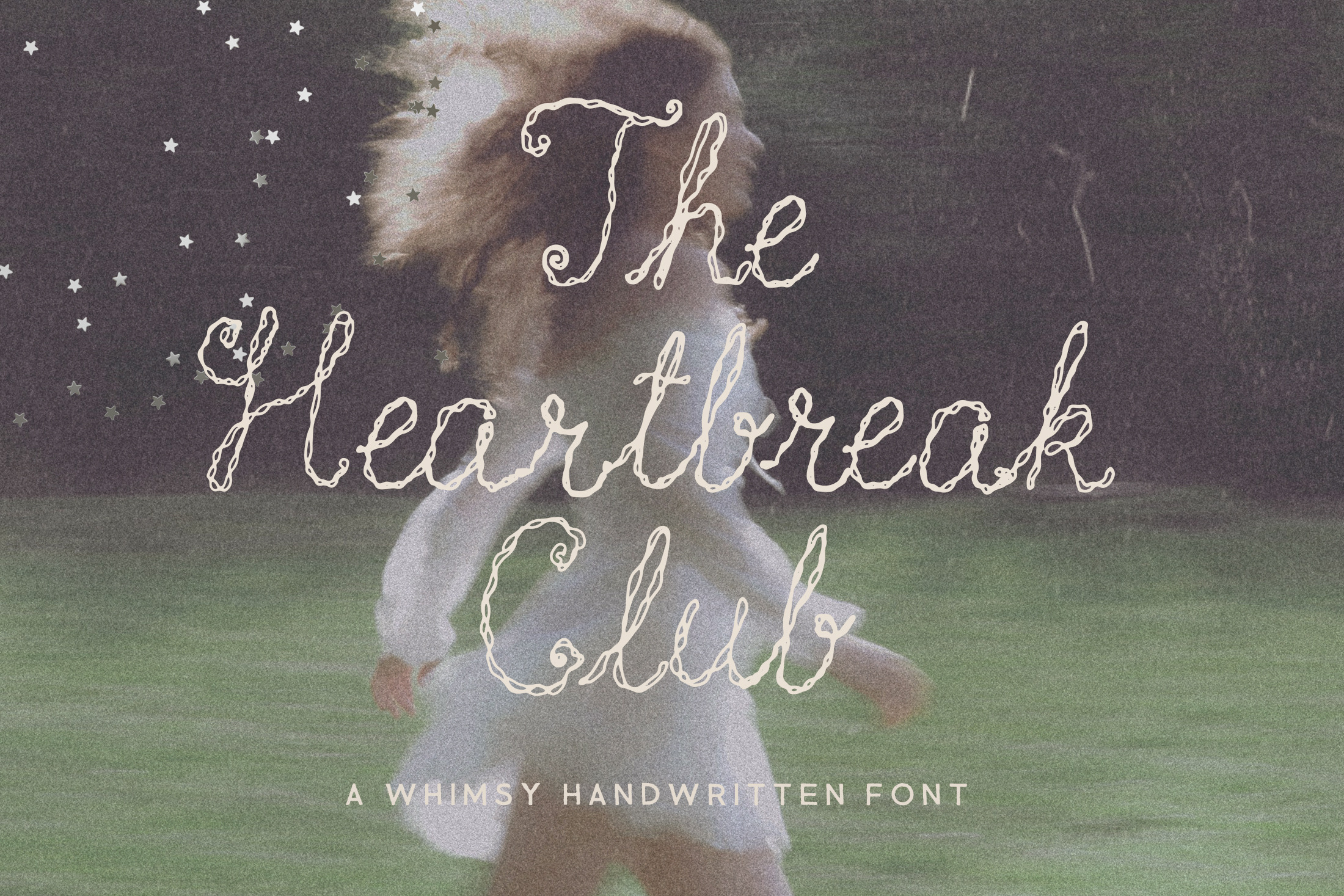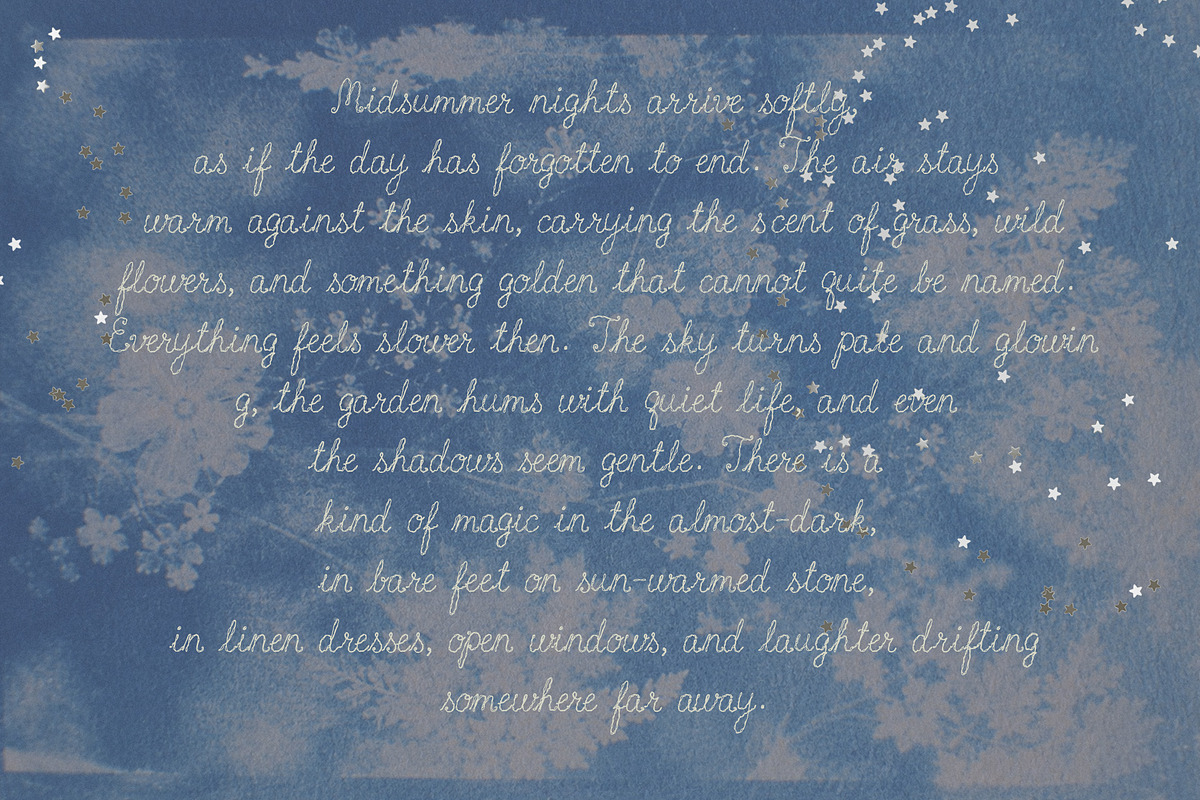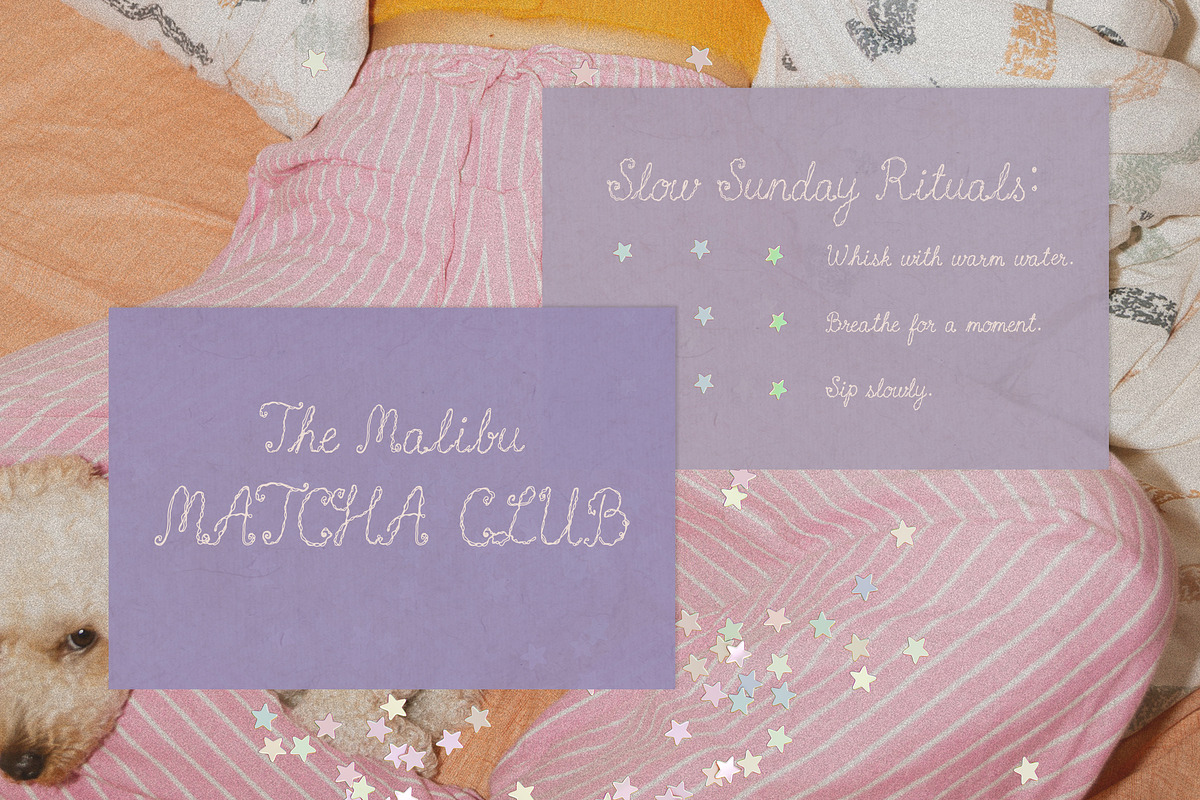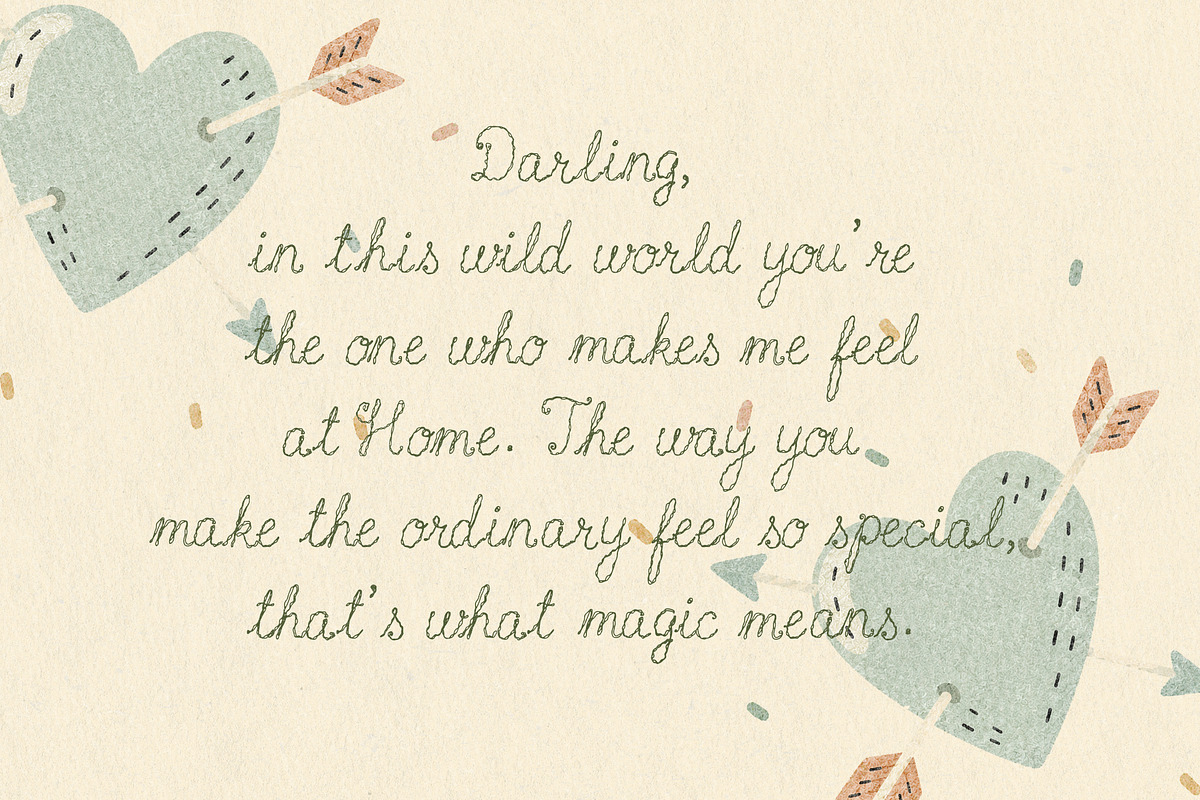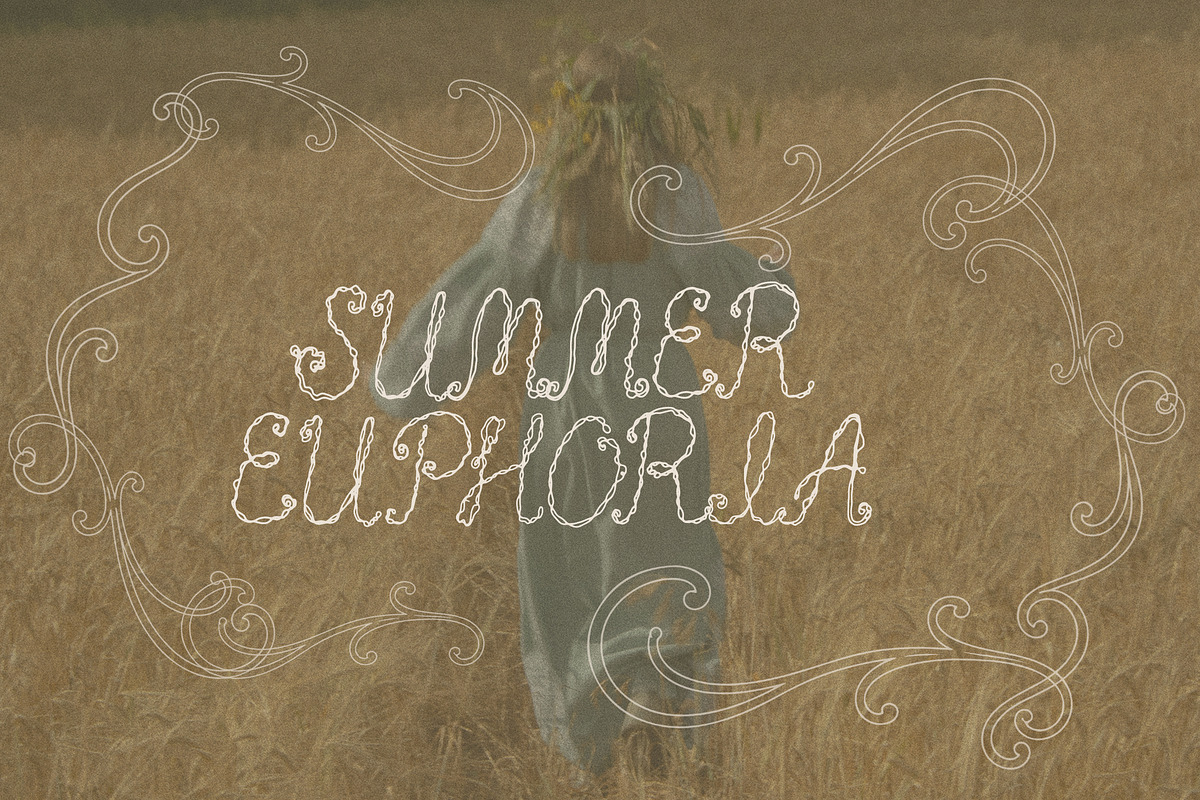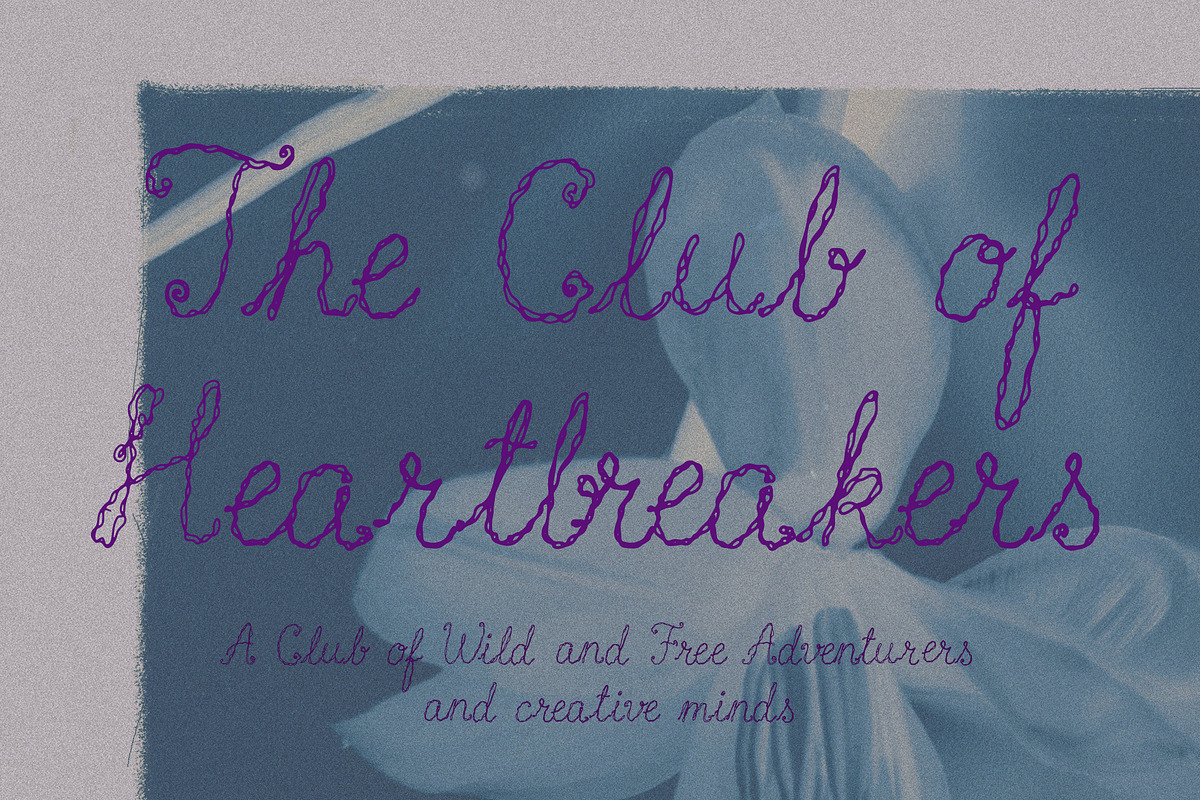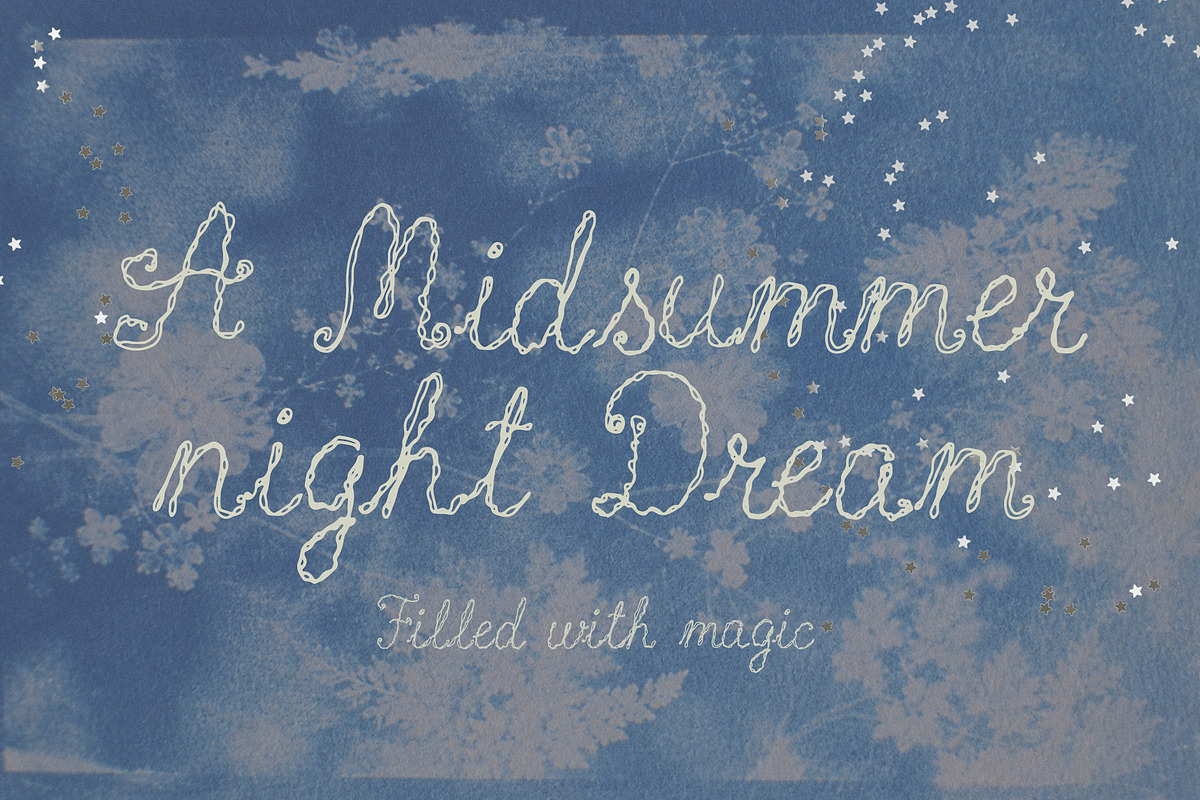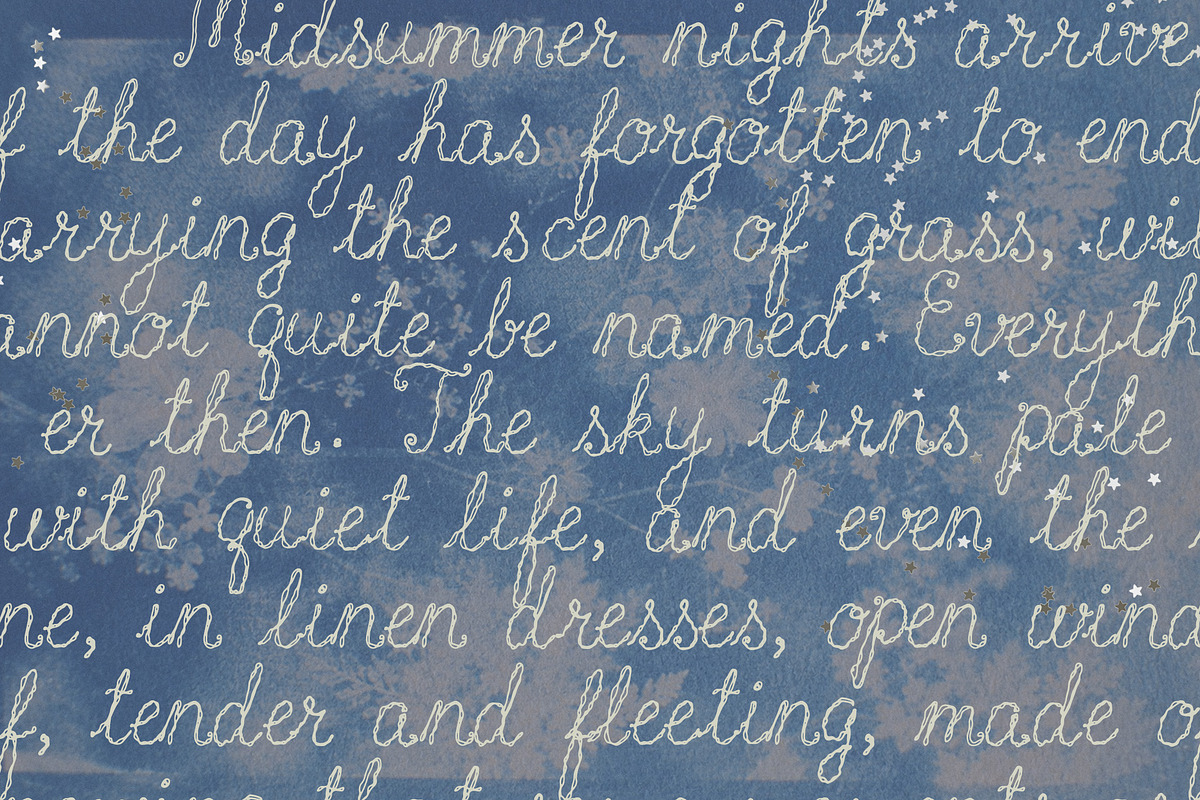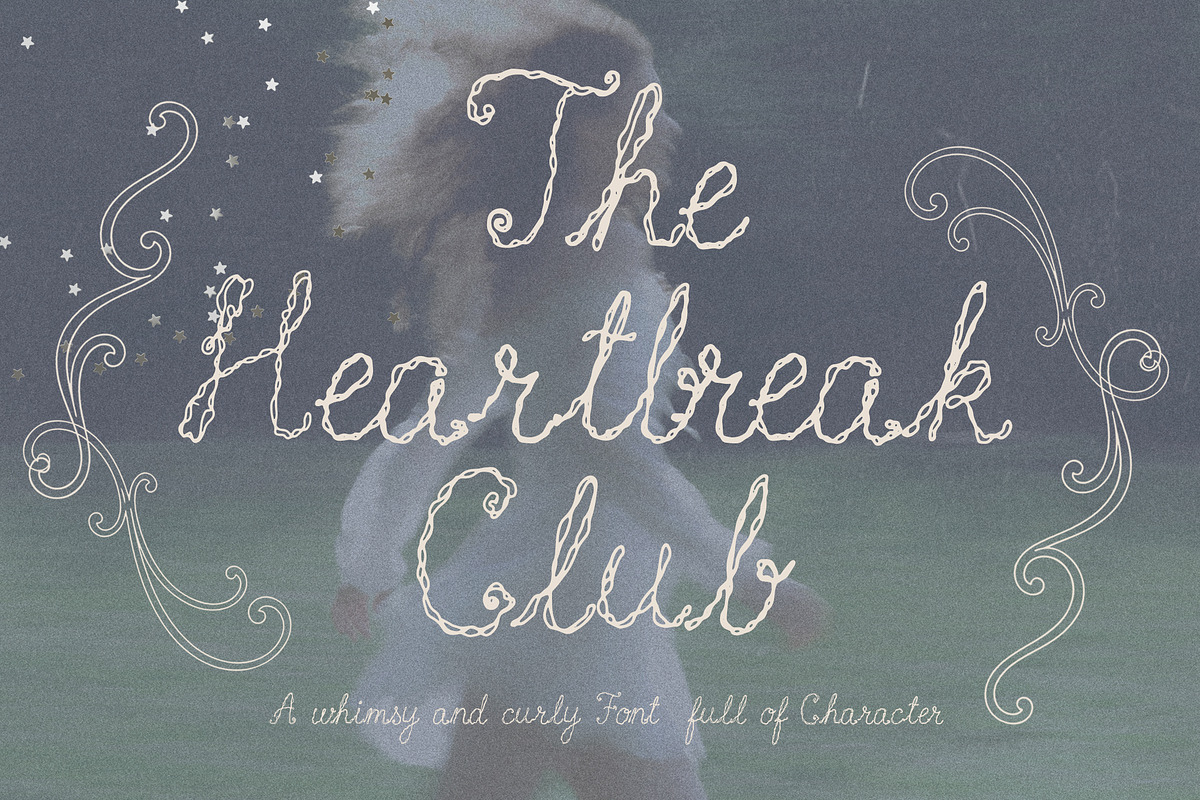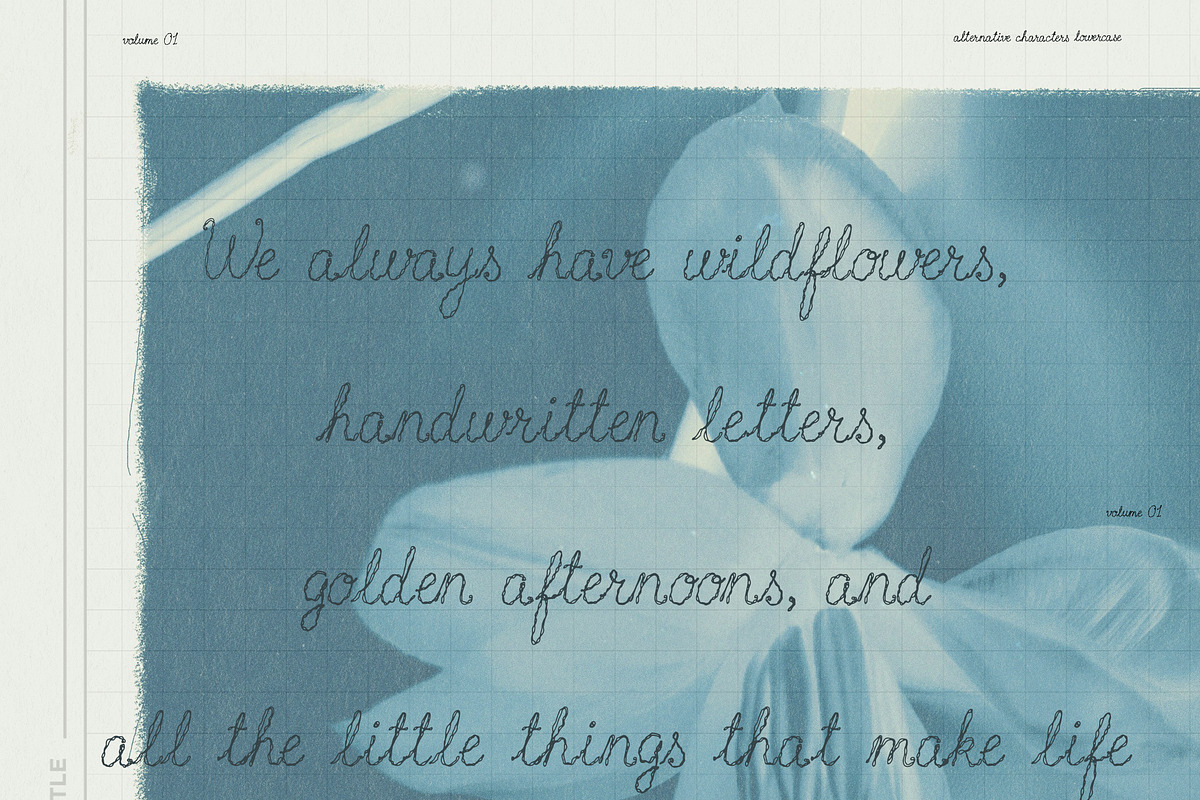
Handwritten Whimsy Stitched Font
Add a soft handcrafted touch to your designs with this whimsical curly font, created with delicate swirls and a subtle thread-like texture. It's charming, slightly imperfect look gives every word a warm, handmade feel, perfect for designs that need personality, softness, and a little whimsy.
With its curly details and stitched-inspired texture, this font feels both playful and elegant. It brings a beautiful hand-drawn character to your work while still feeling polished enough for professional design projects.